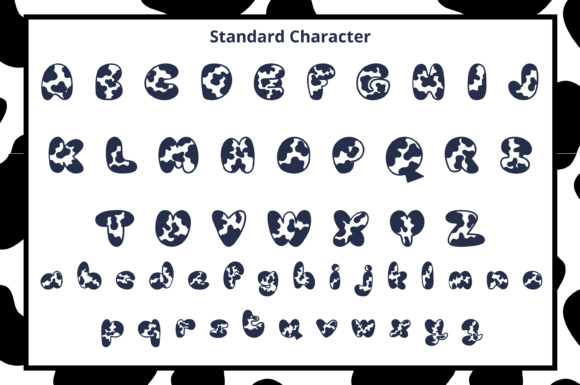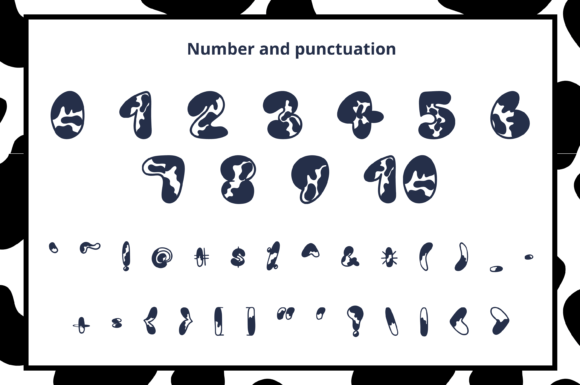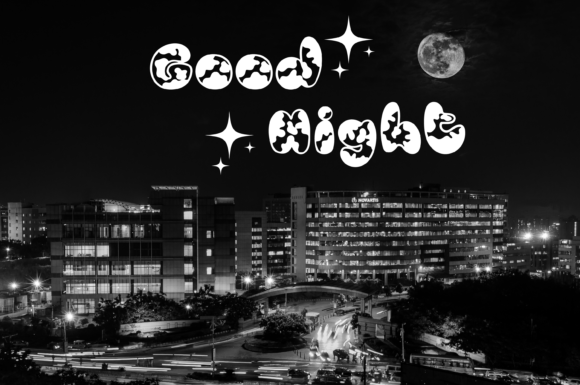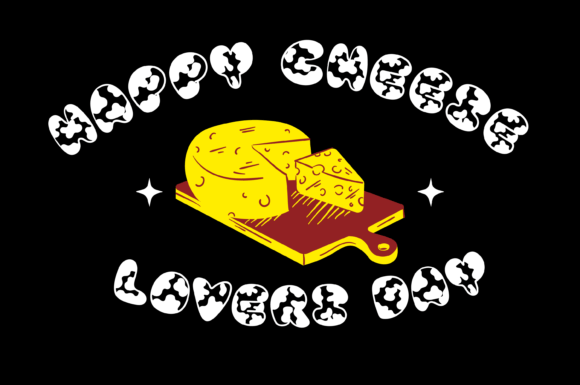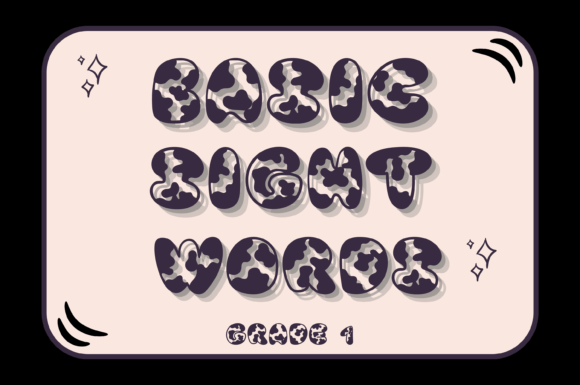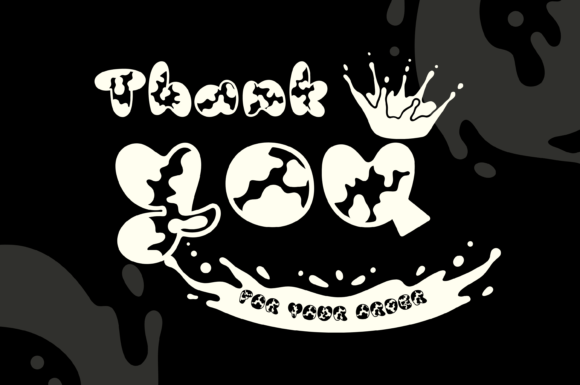
Introduction to Moo Skin Font
Moo Skin is a whimsical and fun decorative font.
Key Features of Moo Skin Font
Why Choose Moo Skin Font?
Moo Skin Font offers exceptional quality and versatility, making it a valuable addition to your design toolkit. Whether you’re creating for personal projects or commercial use, Moo Skin Font delivers professional results.